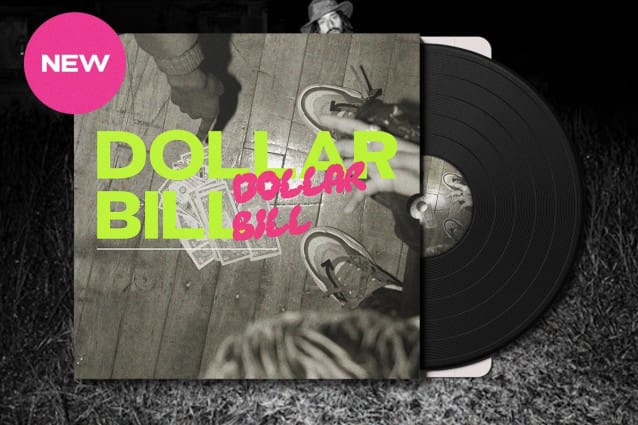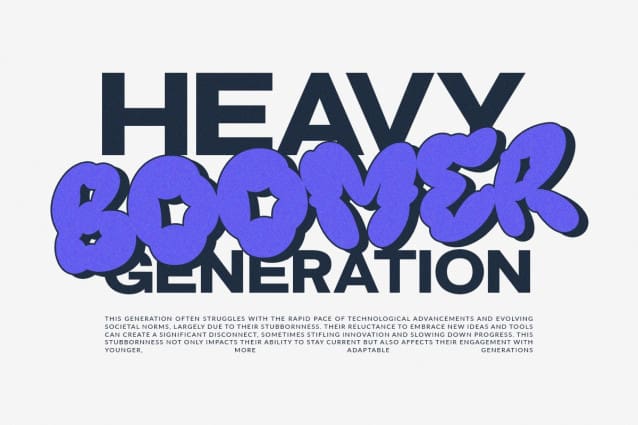
Harison Grand Font
Harison Grand Font – our retro display font, a standout combination of sans serif and whimsical cloud-style typefaces. Perfect for headlines and titles, this font brings a vibrant retro theme to any project, ensuring your designs capture attention with their unique and eye-catching style. Elevate your creative work with this nostalgic yet modern font.